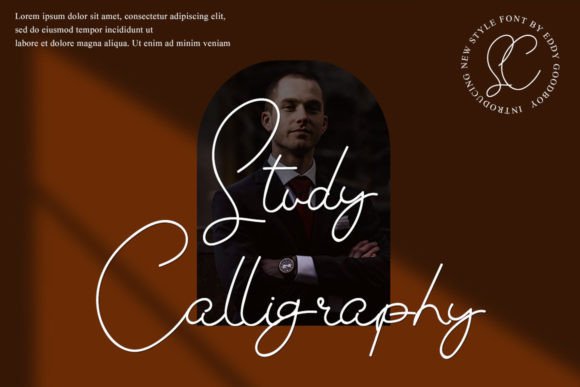
Unleash the charm of Study Calligraphy Font, a resplendent script font family designed by Eddygoodboy. This elegant and versatile font is the perfect choice for creating beautiful and memorable designs.
Experience the timeless beauty of Study Calligraphy Font, a font crafted with utmost care and precision. Each character exudes elegance, with flowing lines and delicate curves that dance across your screen. Its timeless charm is sure to captivate your audience, leaving a lasting impression.
With its versatile nature, Study Calligraphy Font effortlessly adapts to a wide range of projects, both formal and informal. Whether you're designing wedding invitations, creating logos for businesses, or crafting eye-catching social media graphics, this font is your perfect partner.
Study Calligraphy Font's versatility extends beyond its visual appeal. It's designed with functionality in mind, ensuring flawless performance across various platforms and applications. Whether you're using it for digital or print projects, this font will maintain its impeccable quality.
Immerse yourself in the endless creative possibilities offered by Study Calligraphy Font. Its suitability for a vast array of projects makes it an invaluable asset for designers and artists alike. Let your imagination run wild as you explore the boundless potential of this magnificent font.
Indulge in the luxury of Study Calligraphy Font and elevate your designs to new heights. Its timeless elegance and unwavering versatility make it the ideal choice for creating captivating designs that resonate with your audience. Experience the difference that Study Calligraphy Font can make, and prepare to be amazed.